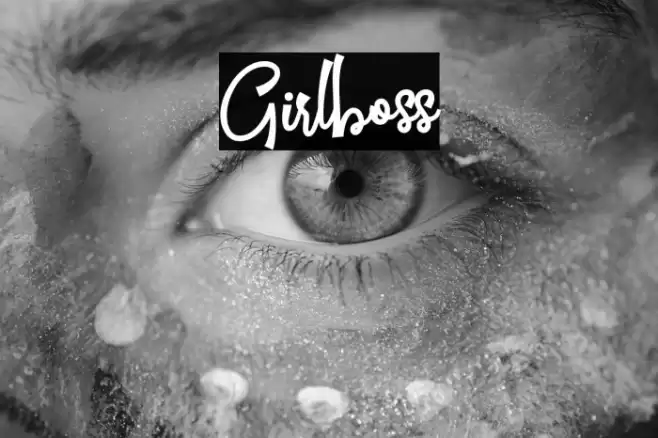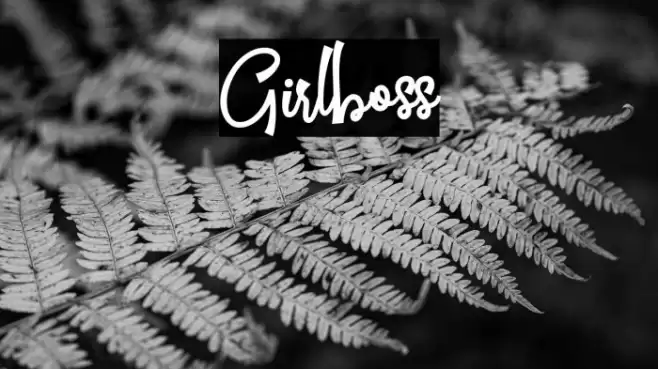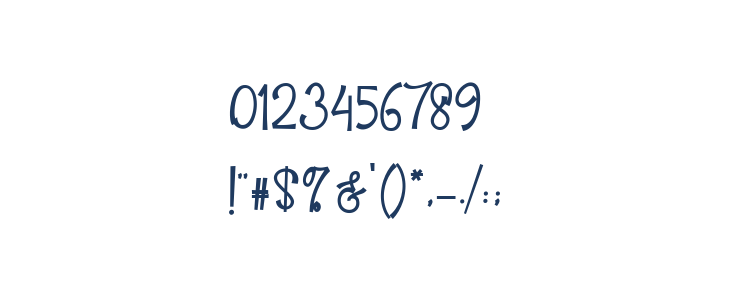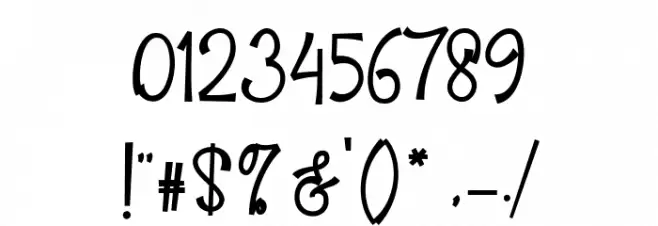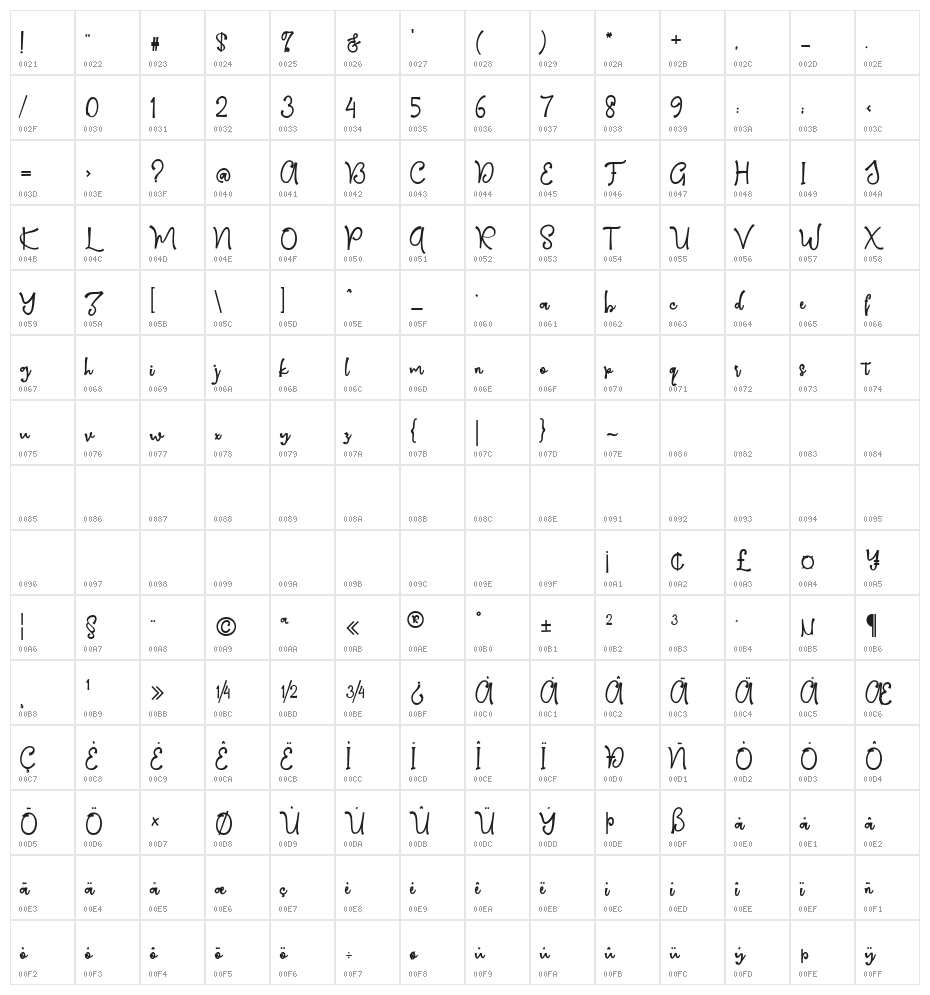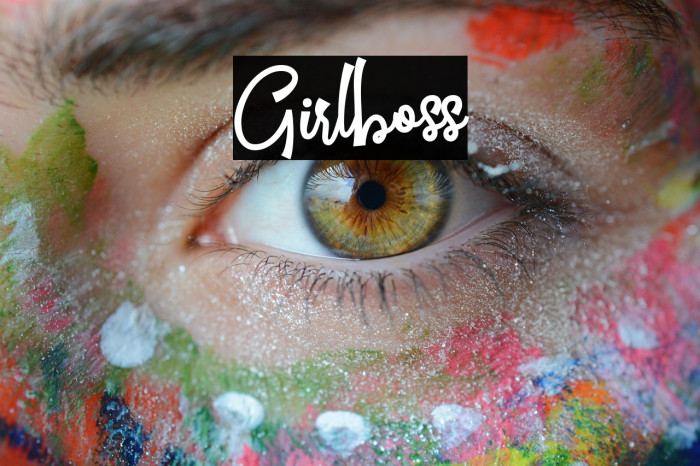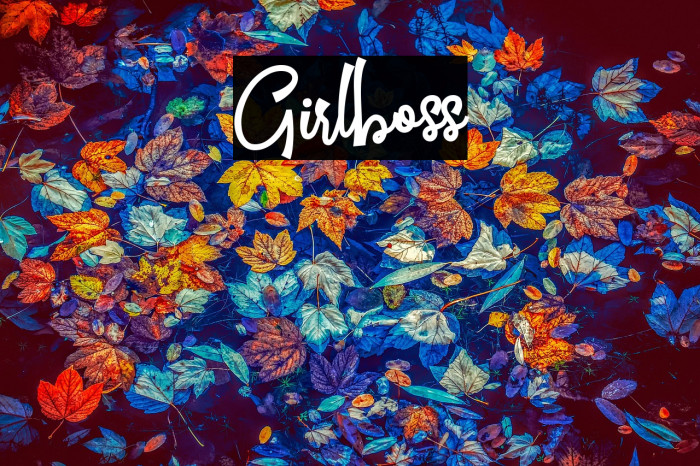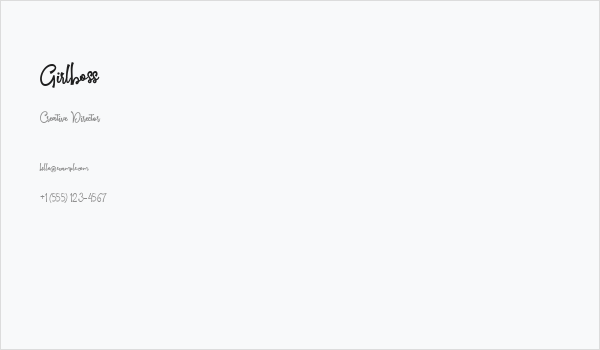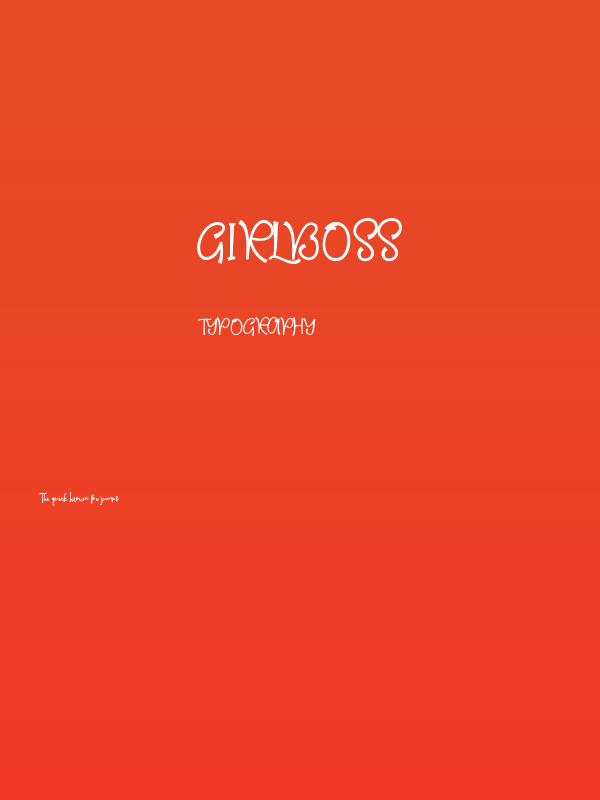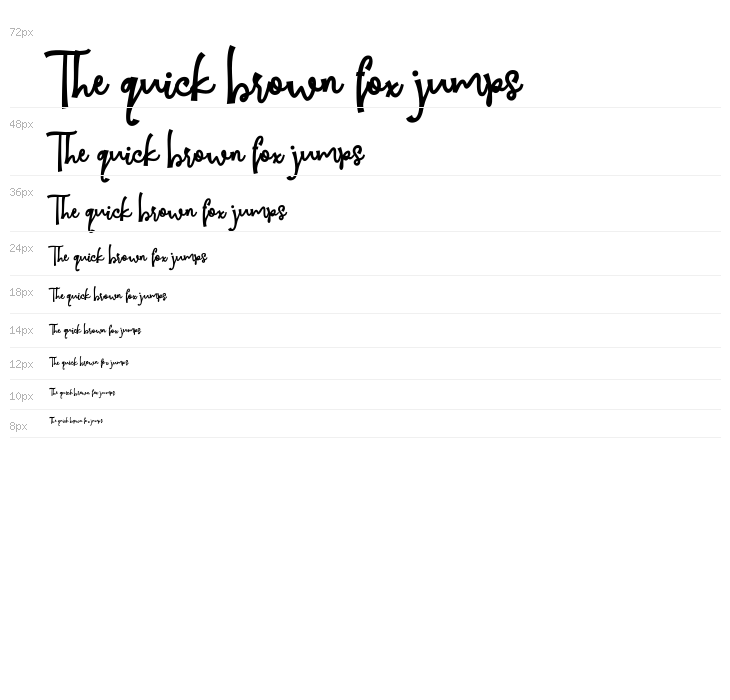
Girlboss Font
Girlboss Description
This font features a playful and energetic script style, characterized by its flowing, cursive letterforms. The uppercase letters exhibit a unique blend of curves and sharp angles, giving them a dynamic and lively appearance. The lowercase letters maintain a consistent cursive flow, enhancing the font's overall cohesiveness. Numbers and special characters are designed with a similar flair, ensuring a harmonious look across all elements. The font's whimsical nature makes it ideal for projects that require a touch of creativity and personality.
A playful and energetic script font with flowing cursive letterforms from Regular fonts.
- Proposed Projects: Ideal for branding, invitations, greeting cards, and creative projects that require a lively and personal touch.
- Use Case: Logos, Invitations, Creative projects